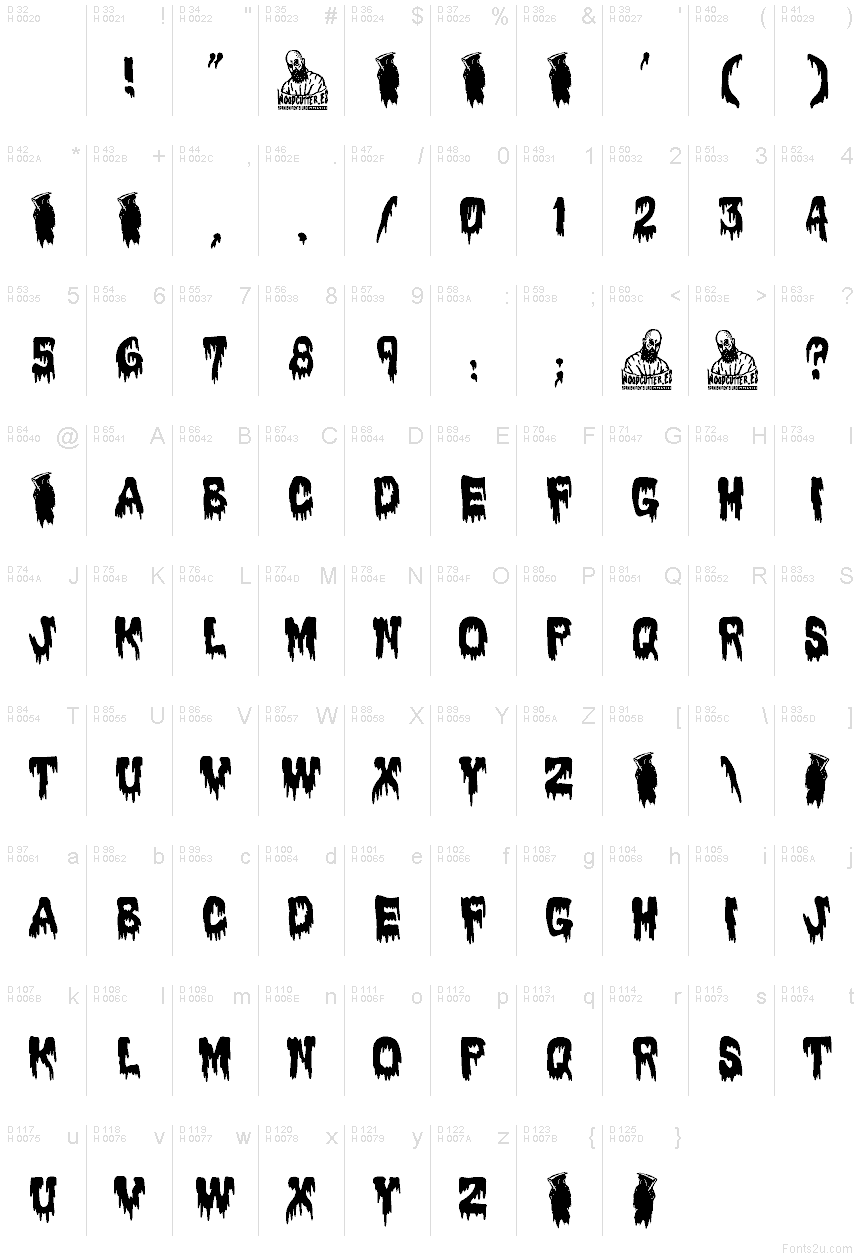
All of us will die
All of us will die font by Woodcutter is a bold scary typeface with a dramatic impact. This free display font leans into horror elements, building on the mix between symbol and texture for maximum effect. Undefined edges and an overall distressed texture are paired with Gothic letters for a vintage horror aesthetic.
Get All of us will die font for personal projects with spooky vibes and memorable artistic displays. Halloween posters, stories, or books cover designs can all be elevated alongside party invitations, games interface texts, or environmental escape rooms instructions. Other options include branding packaging design such as labels and stickers as well as online presence posts or decorations.